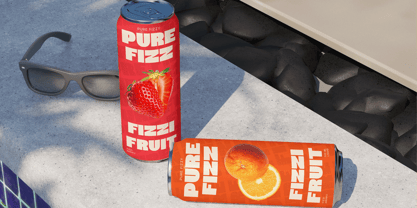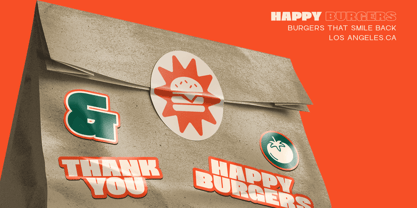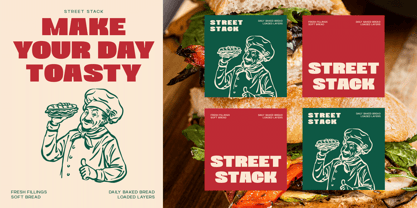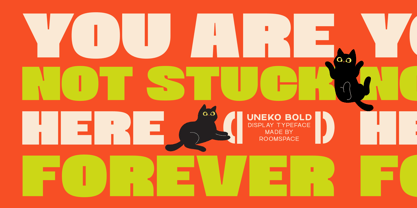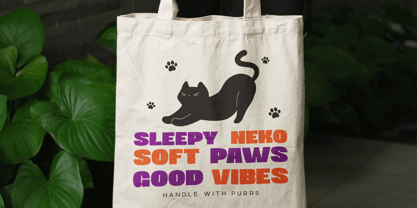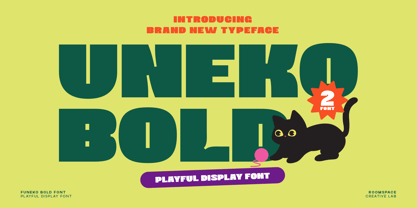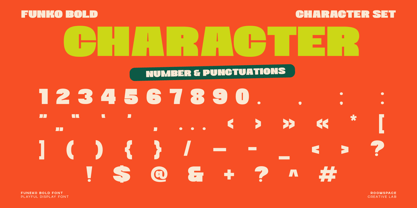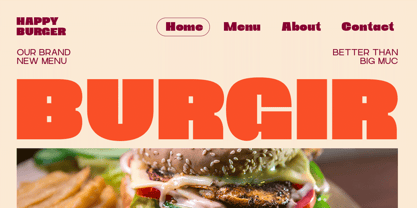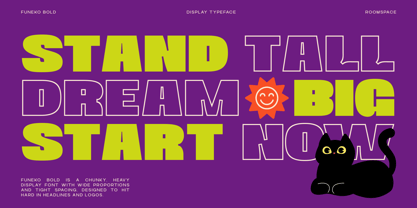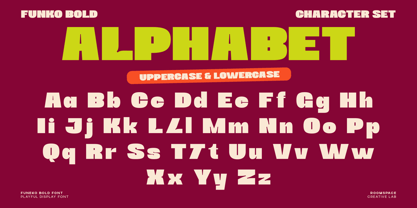
Uneko Bold
by Jafar07
The Uneko Bold Font Family was designed by Bakhrudin Ja'far and published by Jafar07. Uneko Bold contains 2 styles and family package options. More about this family
A fun, bold, and cartoon-style display font perfect for kids branding, games, and playful design. Uneko Bold is a playful display typeface with chunky shapes and a cute cartoon personality. Designed for children’s branding, colorful packaging, posters, and character-based design, this font brings joy and bold expression to every project. This set includes 2 styles, offering flexibility for titles, illustrations, and fun storytelling visuals. Features : 2 playful font styles Chunky and rounded display shapes Uppercase & lowercase Clean curves and playful proportions Perfect For : Kids branding, games, toys, packaging, YouTube thumbnails, storybooks, fun posters, social media graphics.
Designers: Bakhrudin Ja'far
Foundry: Jafar07